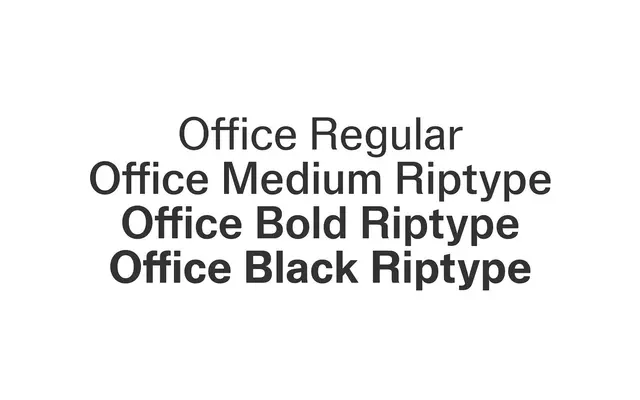
Office Sans
A functional grotesque from Riptype apparently aimed at everyday document and office use.
The page provided no substantive detail about Office Sans beyond its name and the foundry contact information. Based on the name alone, it appears positioned as a utilitarian grotesque suited to office and document contexts. Without specimen or specification data, further assessment is not possible.
The name and foundry branding suggest a functional, workhorse grotesque oriented toward office and document use, a genre rooted in neutral sans-serif traditions.